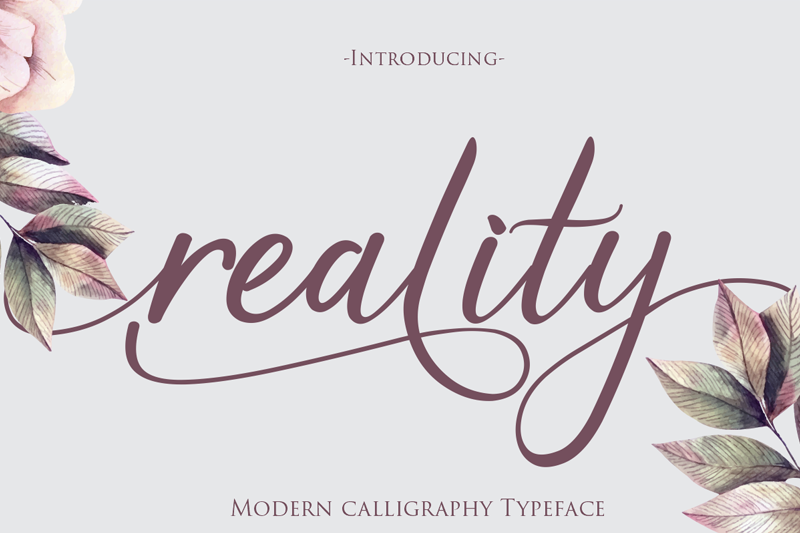
Font name: | Reality |
Author: | Gilar Studio |
Note by Gilar Studio | |
Introducing the Modern Calligraphy Font Reality .Reality is a handwritten calligraphy with quick movement modern calligraphic font style. You can mix and match with Opentype feature: ligature stylistic alternates stylistic sets and stylisticset from ss01 to ss15 gorgeous extras from a to z and beginning and ending numerals swashes.Accessing the opentype features / glyphs: This font works best in a program that supports OpenType features, such as Adobe Indesign CS, Adobe Illustrator CS, Adobe Photoshop CC or Corel Draw 2019. ITake a look at the character map to help you along the way! You will get: Reality OTF Reality TTF Reality WOFF For Donation : Gilar.ever@gmail.com see full version on : https://www.creativefabrica.com/product/reality-2/ref/236330/ Feel Free contact me if u any question. Give it a try! You will surely love it! Thanks and have a wonderful day, Gilar :) |